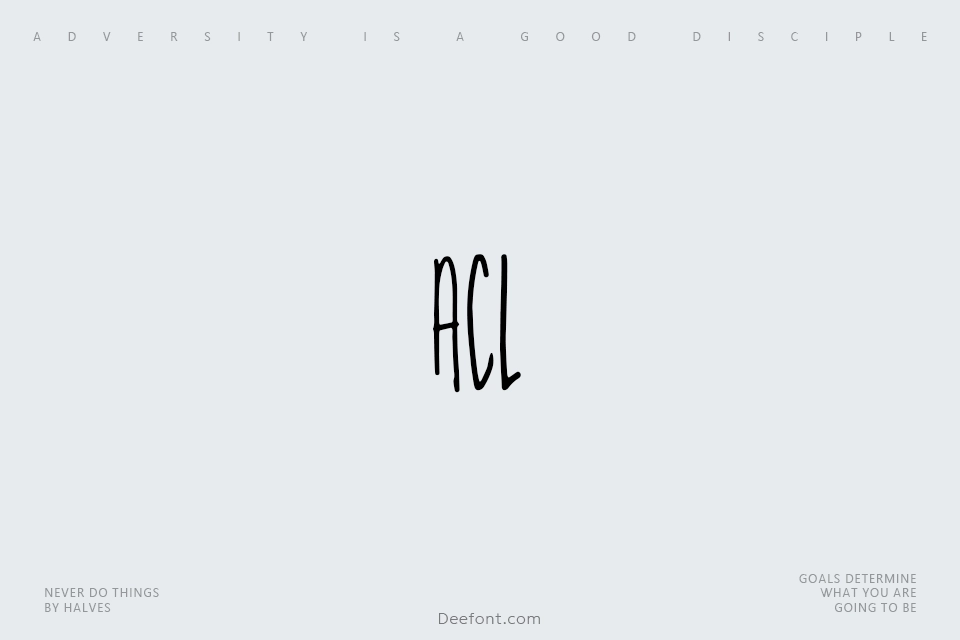
Acl Font
Acl is a casual, hand-drawn typeface featuring bold and consistent strokes with slightly uneven letters that evoke a relaxed, playful feel. Designed by Alan Cloiseau, this script font combines informal charm with personal expression, making it ideal for logos, titles, posters, and handwritten-style designs. The slightly slanted characters add dynamic movement to creative projects, delivering an approachable yet distinctive aesthetic suitable for contemporary design applications.